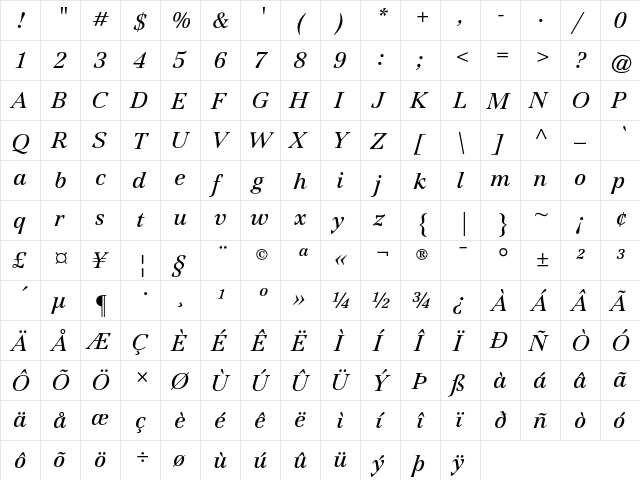
Jamille AT Book Italic
Design Context for Jamille AT Book Typeface
Jamille AT Book is a composed and adaptable typeface that performs quietly and consistently across a wide range of design contexts. The dynamic lean of this cut emphasises speed and emphasis in any layout.
Pro Tip: Use Jamille AT Book for emphasis, pull quotes, and subheadings where its slanted energy can add rhythm to the layout.